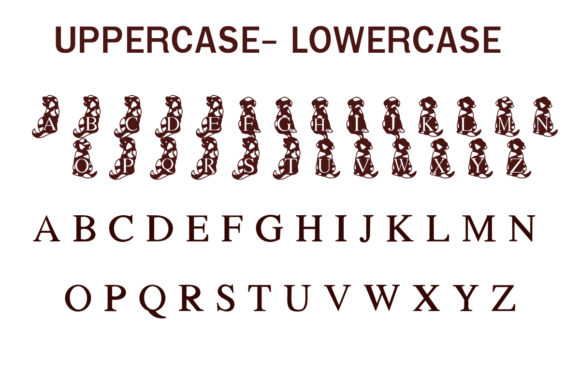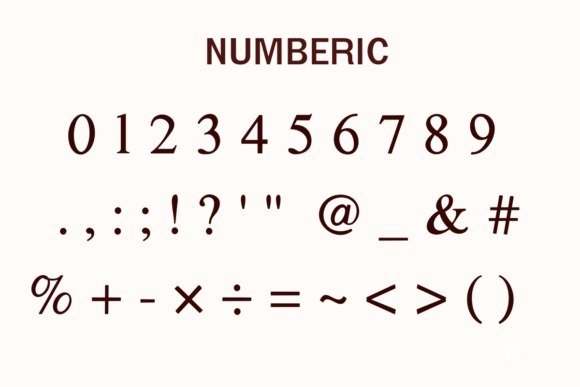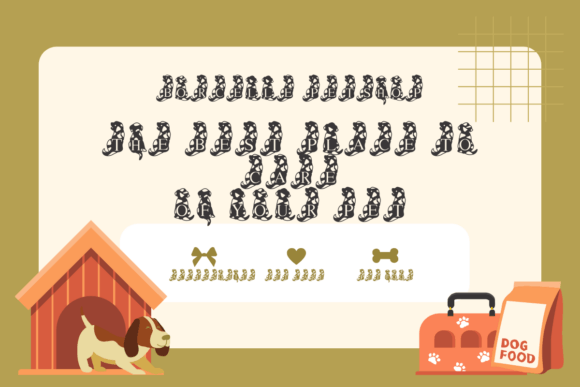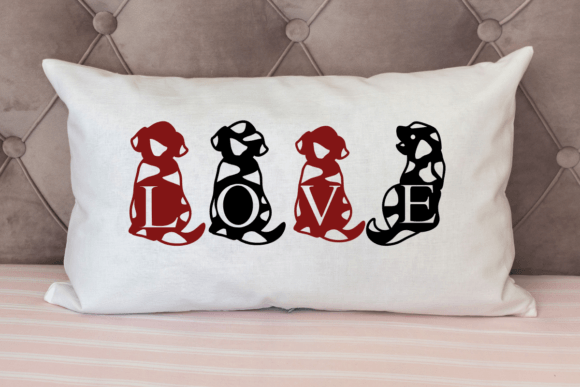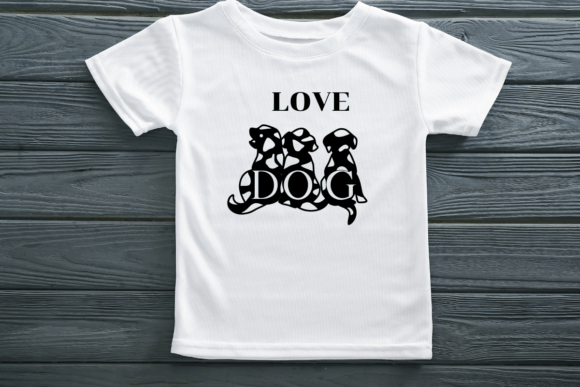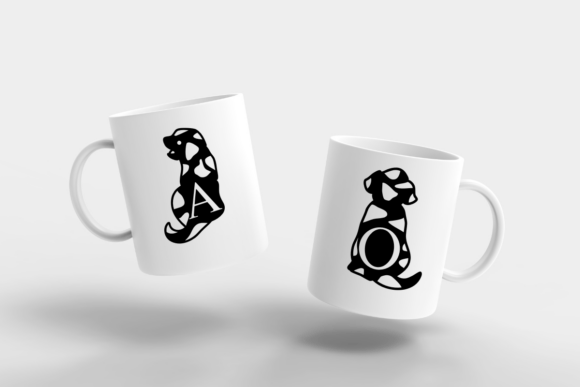
The Paw-fect Font: A Deep Dive into Dog Font
I’ll never forget the time I was working on a project for a pet store, and I just couldn’t find the right font to capture the playful, friendly vibe they wanted. The client was specific: it had to be fun, yet elegant; quirky, yet readable. That’s when I stumbled upon Dog Font, and it was love at first sight! 💕 In this article, I’ll share my experience with this decorative font, its features, and how to make the most of it in your designs.
What I Love About Dog Font
- ✨ Unique and playful design that’s perfect for creative projects
- ✅ Highly readable, even in smaller sizes
- 🎉 Extensive character set, including glyphs and stylistic alternates
While Dog Font is an amazing addition to any design project, there are a few things to keep in mind: 🤔
- ⚠️ Some characters may not work well in all sizes or resolutions
- ⚠️ Limited use in very formal or professional designs, as it’s quite playful
The Backstory of Dog Font
Dog Font was created with love by a designer who wanted to capture the essence of playfulness and companionship that pets bring to our lives. Inspired by the quirky and adorable nature of dogs, this font is meant to bring a smile to anyone’s face. Whether you’re designing for a pet store, creating a fun greeting card, or just want to add some whimsy to your social media posts, Dog Font is here to help.
| Is Dog Font suitable for professional designs? | While Dog Font is quite versatile, its playful nature makes it more suited for creative and informal projects. For very formal or professional designs, you might want to opt for a more traditional font. |
| Does Dog Font support OpenType features? | Yes, Dog Font supports various OpenType features, including ligatures, stylistic alternates, and glyphs, which can enhance your designs. |
Dog Font is more than just a decorative font; it’s a way to add a touch of whimsy and fun to your designs. Whether you’re a designer, crafter, or hobbyist, this font can help you create engaging and delightful projects. So go ahead, give Dog Font a try, and see how it can bring your designs to life! 🎉